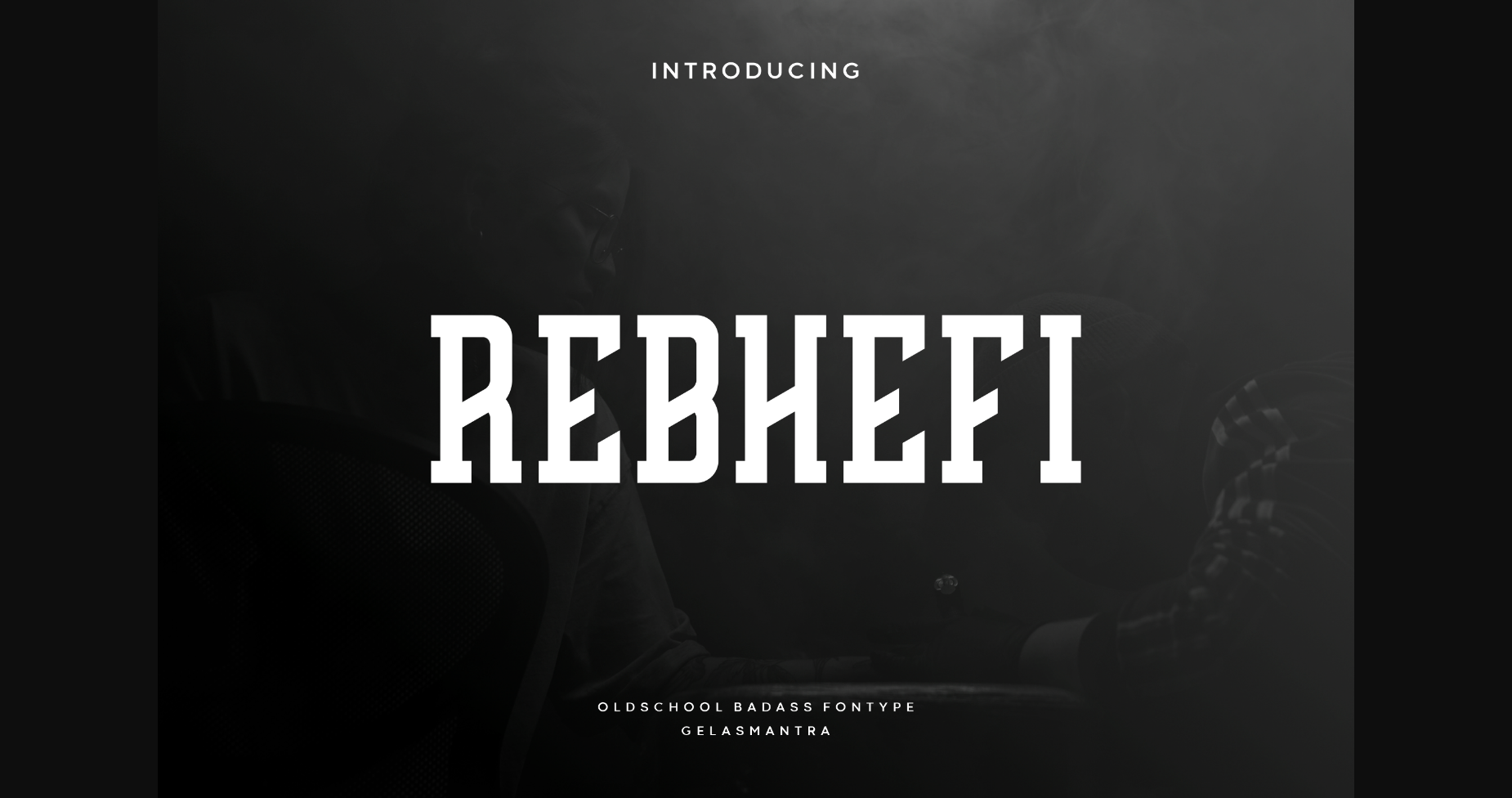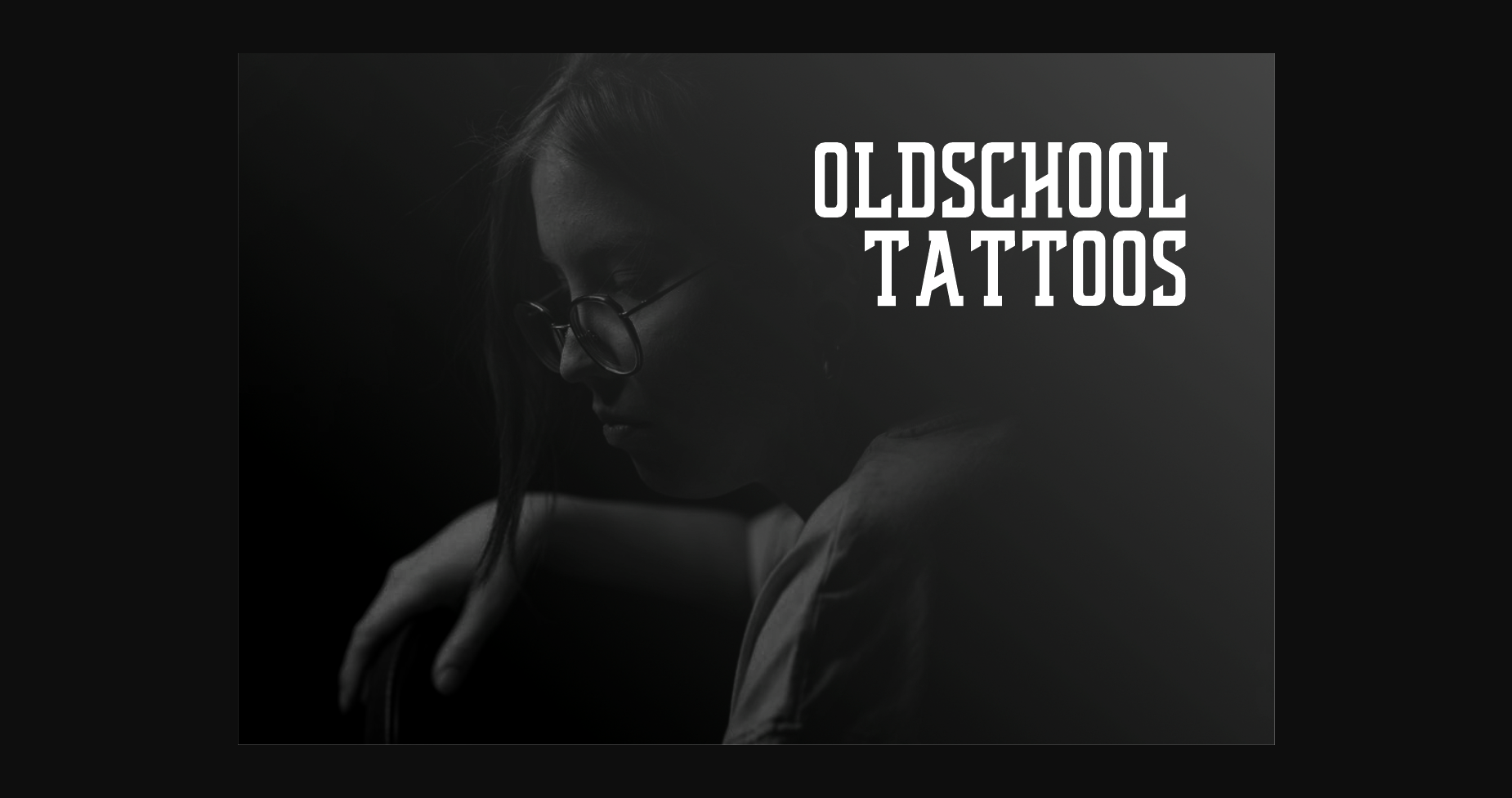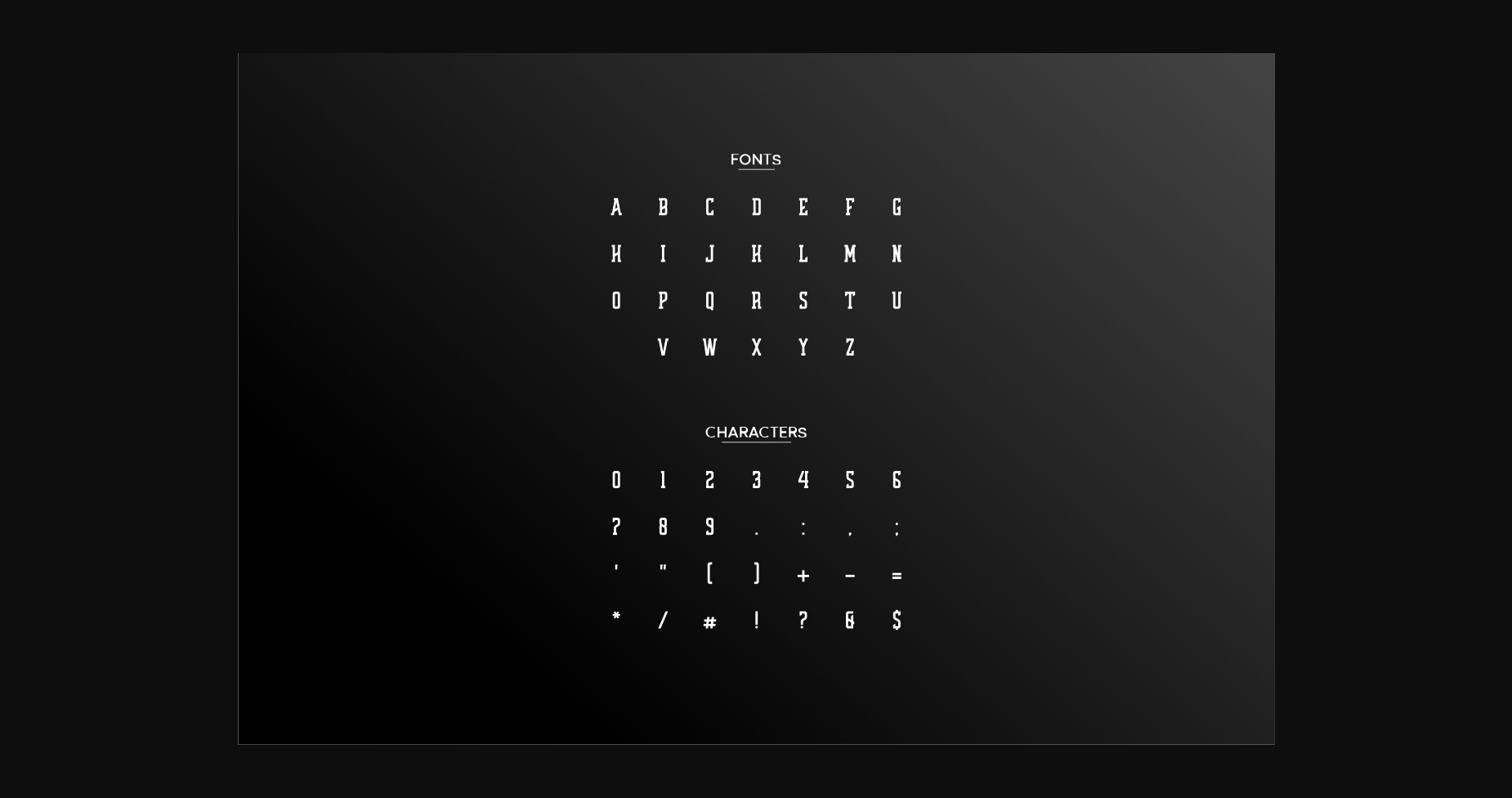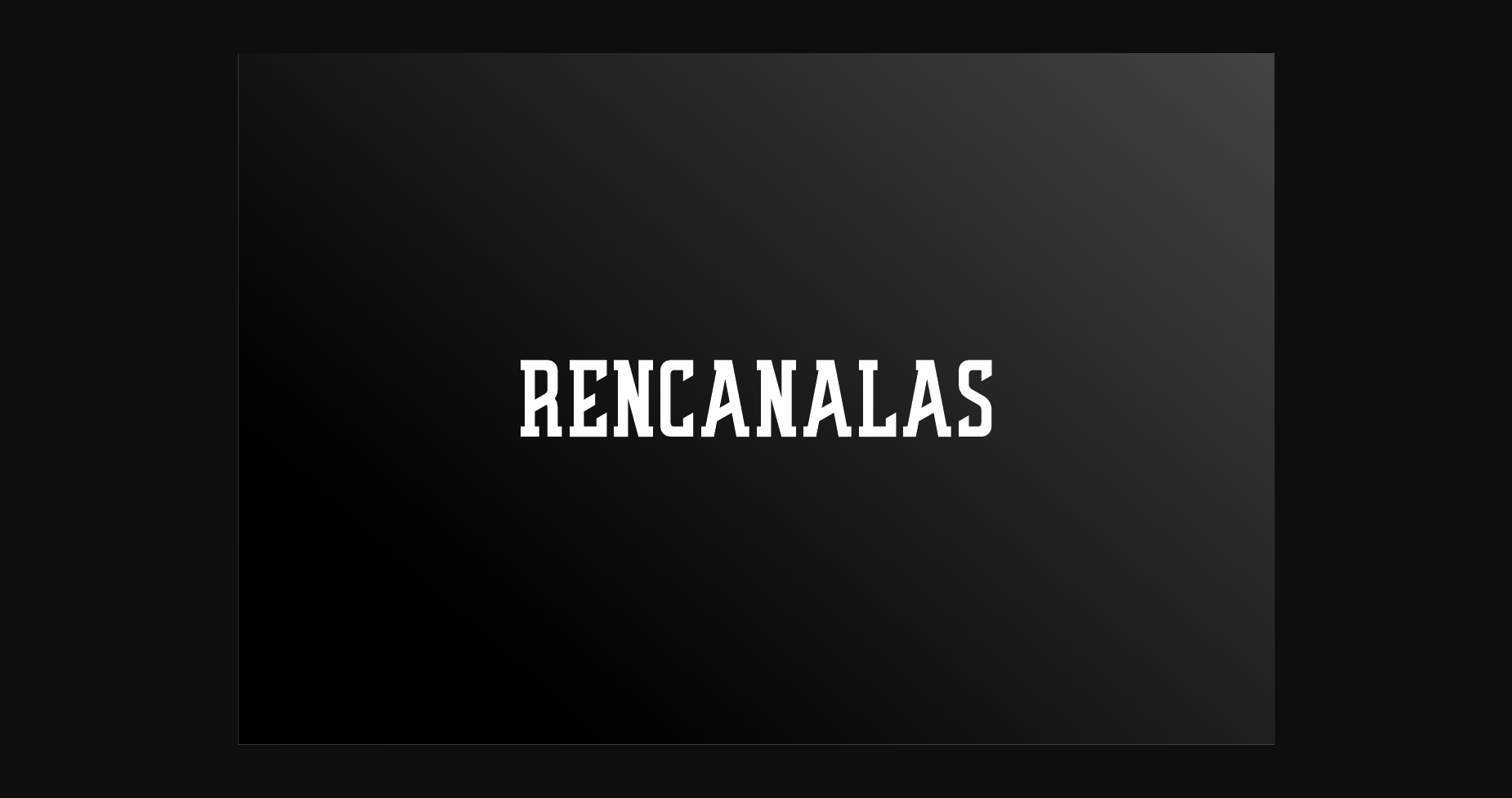
About Rebhefi Font
Rebhefi is a bold and thick lettered display font. Masterfully designed to become a true favorite, this font has the potential to bring each of your creative ideas to the highest level. Rebhefi is perfect for sports, apparel, promo and large headline uses. Its versatility allows you to brand each sport.